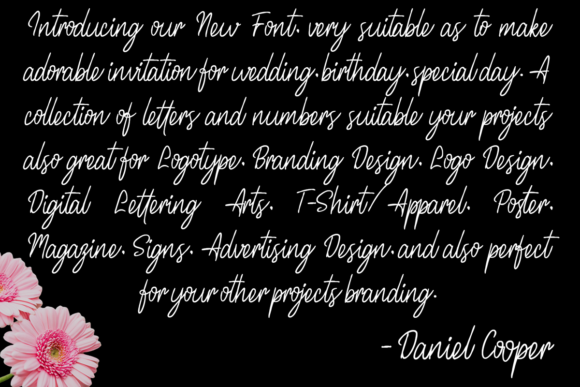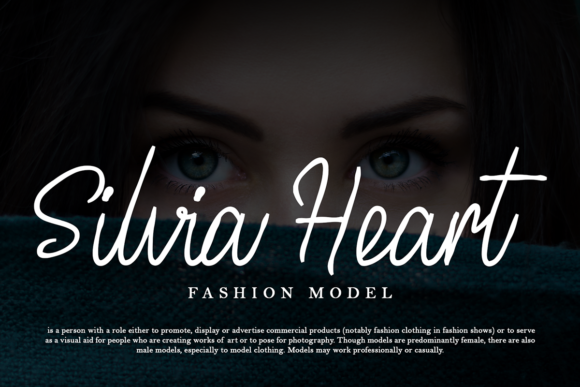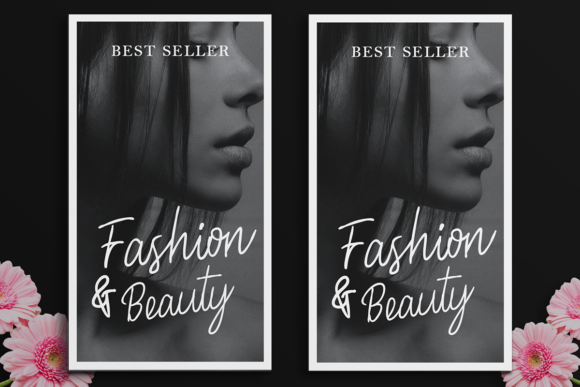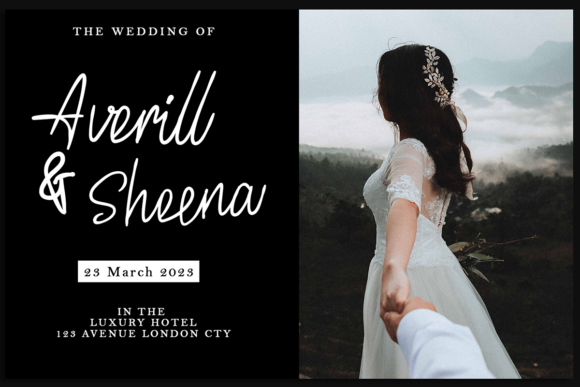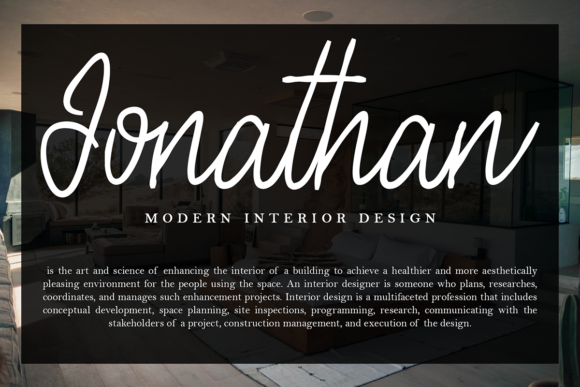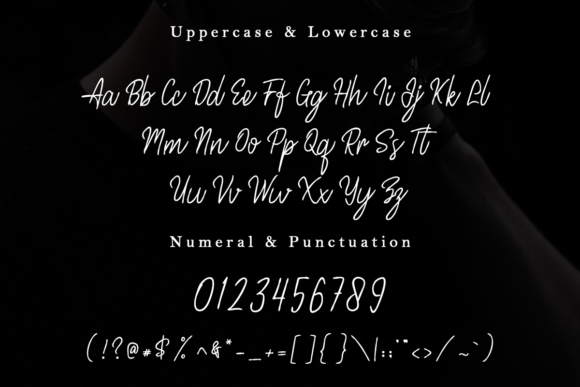
Introducing Daniel Cooper Font: Elevate Your Creative Projects with Modern Script Elegance
In the realm of typography, fonts play a pivotal role in conveying messages, expressing creativity, and establishing brand identities. Among the myriad of fonts available, Daniel Cooper stands out as a modern script font that has garnered attention for its elegance, versatility, and wide range of applications. In this article, we’ll delve into the characteristics of the Daniel Cooper font, explore its uses, and understand why it has become a go-to choice for designers and crafters alike.
What is Daniel Cooper Font?
Daniel Cooper is a contemporary script font designed to offer a stylish and sophisticated look to various creative projects. This collection of letters and numbers is not just a simple set of typefaces but a comprehensive tool that can elevate the aesthetic appeal of your designs. Whether you’re working on logotypes, branding designs, logo designs, or any form of digital lettering arts, Daniel Cooper provides the elegance and modernity required to make your project stand out.
Key Features of Daniel Cooper Font
- Modern Script Style: Daniel Cooper boasts a modern script style that is both fluid and dynamic. Its letters are designed to create a sense of movement and elegance, making it perfect for designs that require a touch of sophistication.
- Versatility: One of the standout features of Daniel Cooper is its versatility. It can be used across a wide range of projects, including but not limited to logotypes, branding designs, logo designs, digital lettering arts, T-shirts/apparel, posters, magazines, signs, and advertising designs.
- Easy to Read: Despite its script nature, Daniel Cooper is designed to be easily readable, making it suitable for both display purposes and body text in some contexts.
- Extensive Use: Beyond the mentioned applications, Daniel Cooper can be utilized in web design, packaging, and any project that demands a modern and stylish typographic approach.
Applications of Daniel Cooper Font
The applications of Daniel Cooper font are vast and varied, catering to the needs of different creative professionals. Here are some of the primary uses:
- Logotypes and Branding: For businesses looking to establish a strong brand identity, Daniel Cooper offers a unique and memorable typographic solution that can set a brand apart from its competitors.
- Logo Designs: The font’s modern script style makes it an excellent choice for logo designs that require a blend of professionalism and creativity.
- Digital Lettering Arts: Digital artists and lettering enthusiasts will find Daniel Cooper to be a valuable asset in their creative toolkit, allowing for the production of stunning artworks.
- Fashion and Merchandise: For designers creating T-shirts, apparel, and other merchandise, Daniel Cooper provides a stylish and contemporary look that appeals to a wide audience.
- Print Media: The font is also suitable for use in posters, magazines, and signs, offering a fresh and engaging visual experience.
Why Choose Daniel Cooper Font?
Choosing Daniel Cooper font for your projects comes with several advantages:
- Unique Aesthetic: It provides a unique aesthetic that can help your designs stand out in a crowded marketplace.
- Flexibility: Its versatility means you can use it across various projects, reducing the need for multiple fonts.
- Professionalism: The modern script style exudes professionalism, making it suitable for businesses and brands looking to make a positive impression.
| Author | staircasestudio20 |
Daniel Cooper font is a powerful tool for designers and crafters looking to infuse their projects with a modern and elegant script style. Its versatility, readability, and wide range of applications make it an excellent choice for various creative endeavors. Whether you’re designing a logo, crafting a brand identity, or working on digital lettering arts, Daniel Cooper offers the sophistication and charm needed to elevate your work. By incorporating Daniel Cooper into your typographic arsenal, you’re equipping yourself with a font that can help you achieve your creative goals with style and professionalism.